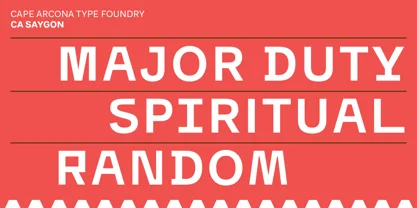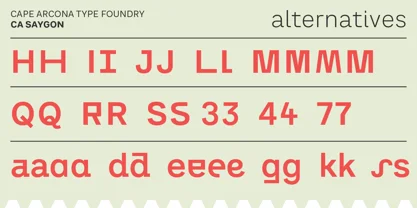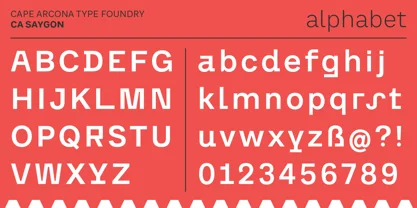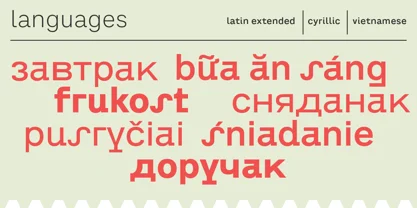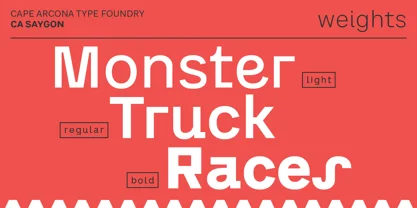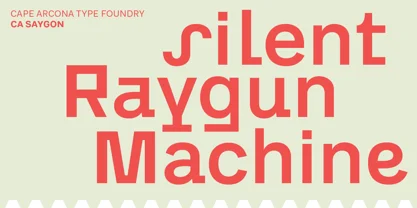
CA Saygon Font
CA Saygon Font is perfect for sophisticated branding projects, elegant corporate identities, refined marketing materials, premium packaging design, upscale editorial layouts, distinguished business communications, luxury brand applications, professional presentations, cultured event materials, and sophisticated digital interfaces.
What makes CA Saygon Font so exciting is its refined sophistication that perfectly balances contemporary elegance with timeless appeal, creating typography that communicates cultured professionalism and distinguished quality. This exceptional typeface embodies sophisticated refinement and cultural intelligence, delivering visual communication that resonates with discerning audiences seeking authentic elegance and professional excellence.
The CA Saygon Font family includes thin, light, regular, medium, bold, and black weights, complete with italic variations and sophisticated design features that provide designers with comprehensive tools for creating distinguished and memorable typography that embodies cultured sophistication and professional refinement.
Experience cultured elegance with CA Saygon Font, a masterfully crafted typeface that brings sophisticated refinement and cultural intelligence to contemporary design projects. This exceptional font embodies the perfect fusion of worldly sophistication and professional excellence, making it the ideal choice for brands that represent cultured refinement and distinguished quality.
The elegantly proportioned letterforms of CA Saygon Font showcase cultured sophistication with distinguished character that creates instant recognition of refined quality and professional elegance. Each character displays meticulous attention to maintaining the sophisticated refinement that defines cultured communication while ensuring contemporary readability and professional versatility. The font's elegant construction and cultured spacing contribute to its sophisticated appearance and distinguished appeal.
Luxury brands and culturally-conscious organizations consistently choose CA Saygon Font for projects requiring sophisticated elegance and cultured presentation. The comprehensive character set includes uppercase and lowercase letters, numerals, extensive punctuation, international accents, and sophisticated elements that provide complete support for premium branding applications and distinguished design compositions.
The cultured versatility of CA Saygon Font ensures exceptional performance across both traditional print and modern digital platforms. Whether developing sophisticated brand identities, creating refined marketing campaigns, or designing elegant corporate materials, this remarkable typeface delivers consistent sophistication that resonates with audiences appreciating cultured refinement and professional distinction.
Transform your most sophisticated projects with CA Saygon Font. This extraordinary typeface brings cultured sophistication and refined elegance to typography, making it the essential choice for designers who create experiences that celebrate worldly refinement and the timeless appeal of sophisticated professional communication.